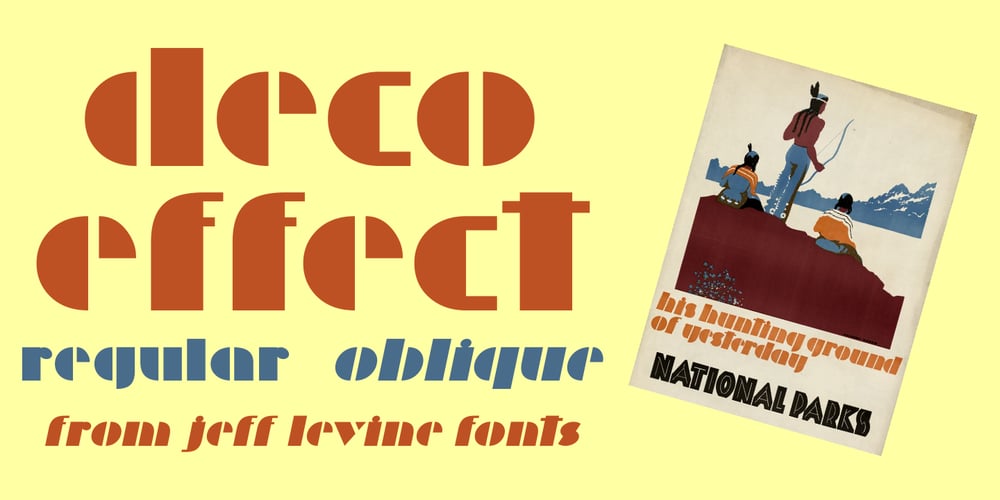
Deco Effect JNL Font Family was designed by Jeff Levine and published by Jeff Levine. Deco Effect JNL contains 2 styles and family package options. A National Parks poster created and hand lettered by Dorothy Waugh in 1934 featured text in an oblique style strongly influenced by Futura Black. Entitled “His Hunting Ground of Yesterday”, Waugh breaks with typesetting norms and designed the poster with only lower case characters.Now available digitally as Deco Effect JNL in both regular and oblique versions, this ultra bold typeface can be paired with any similar font for continuity, or used alone in lower case for attention-getting effect.